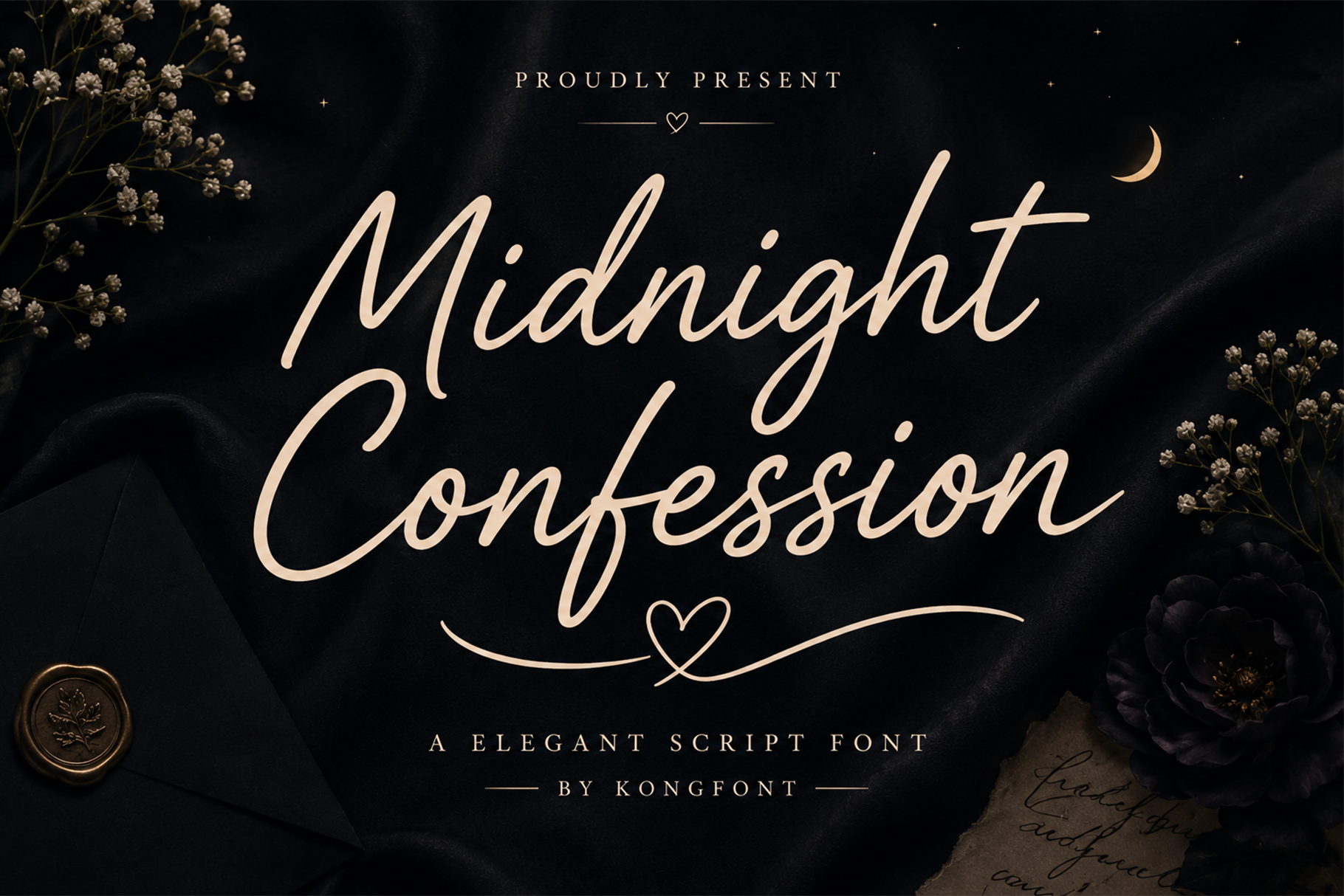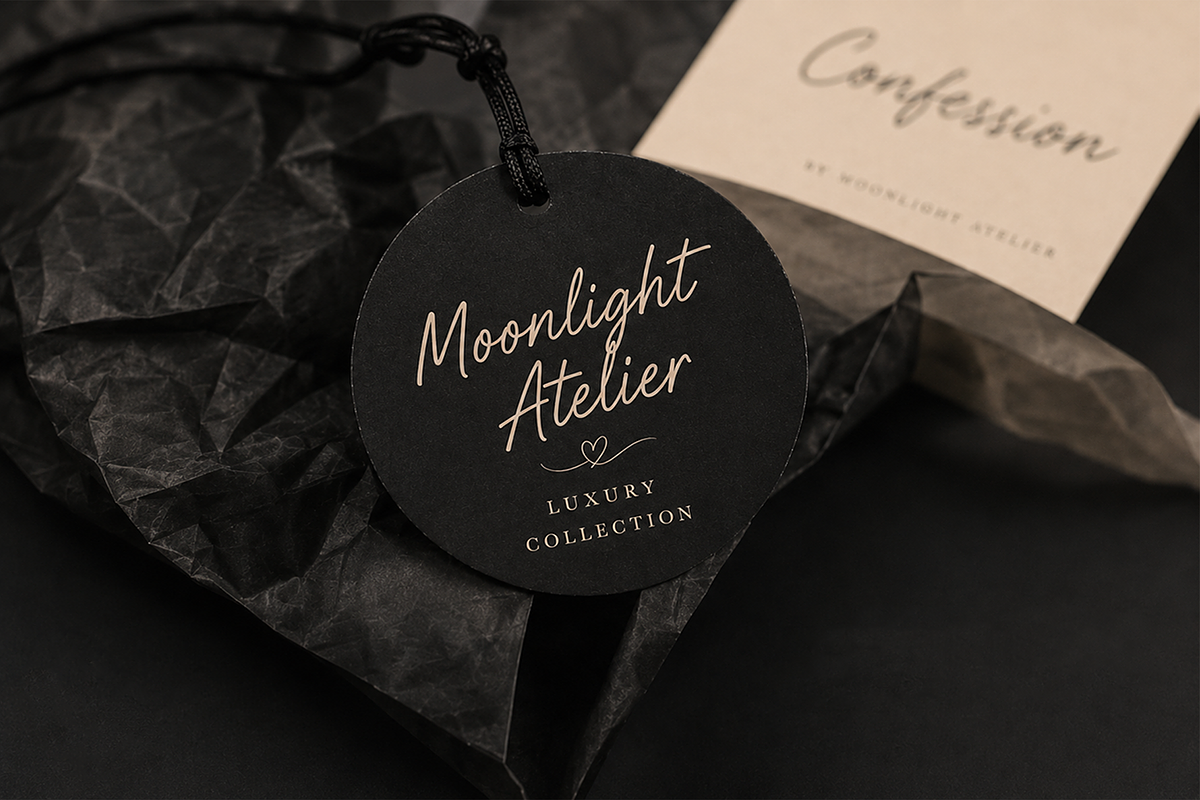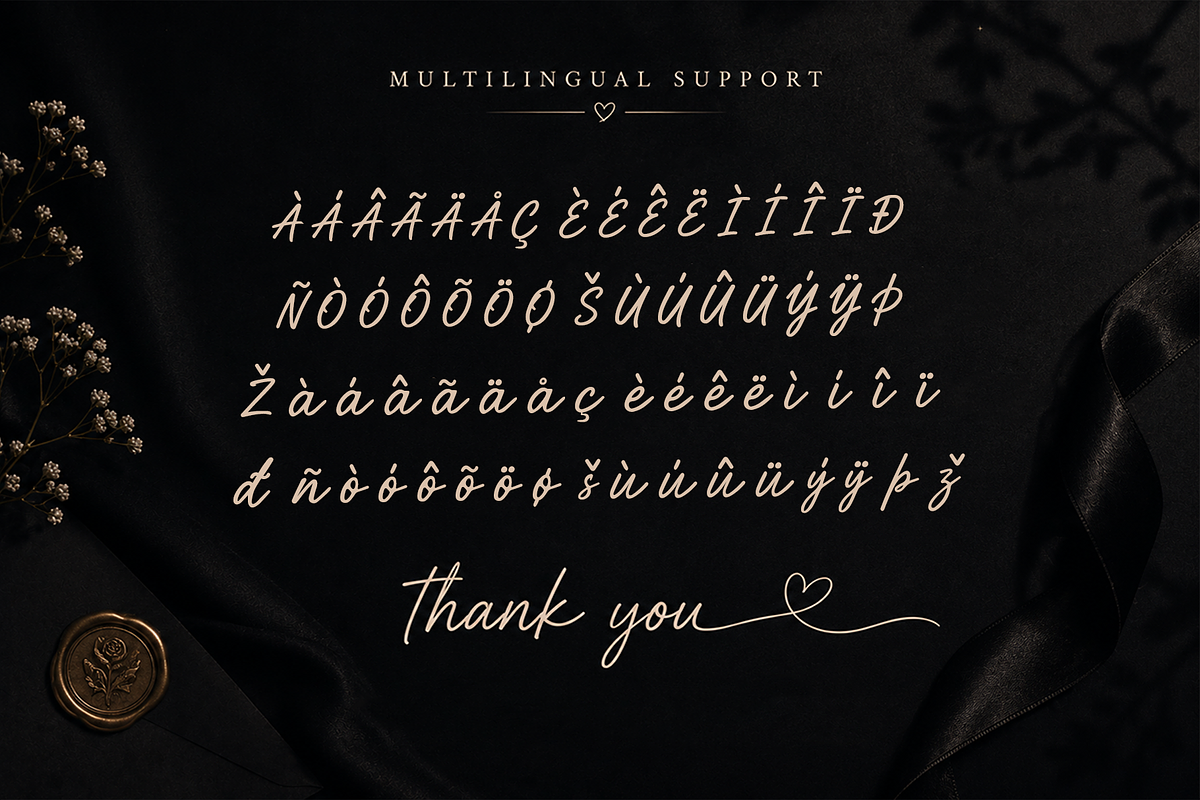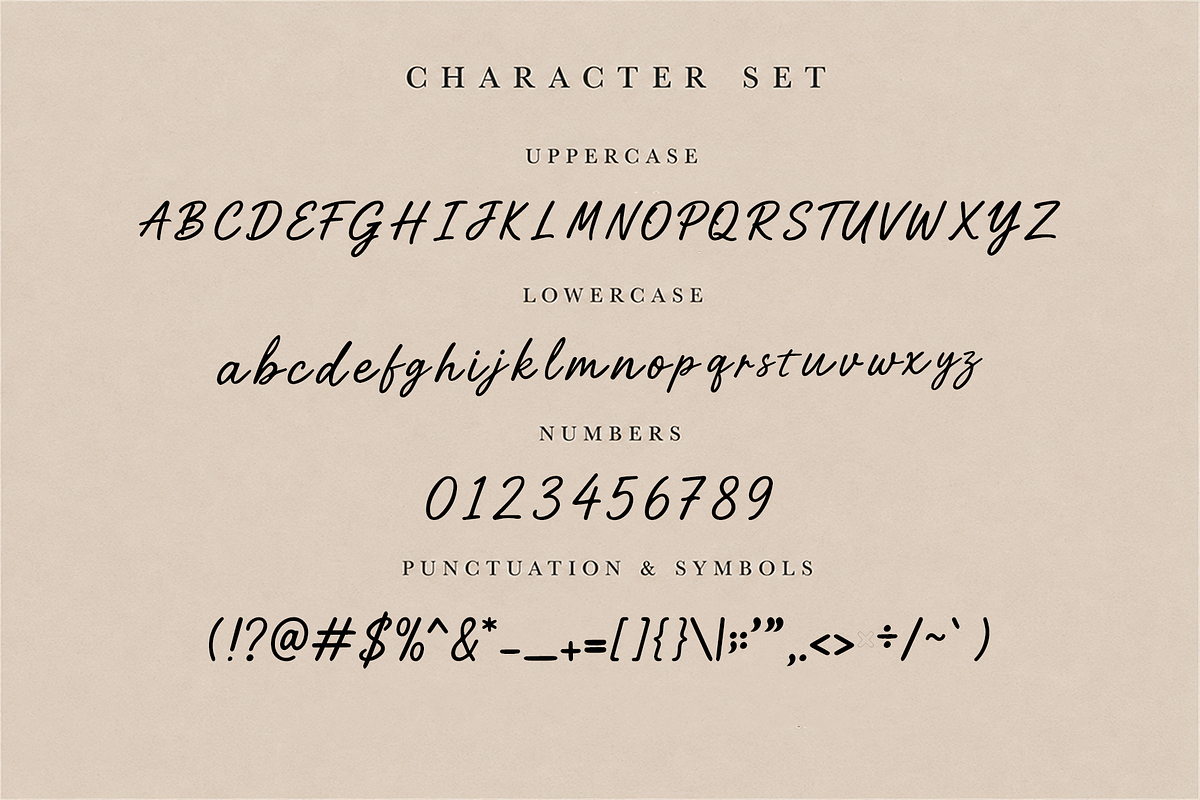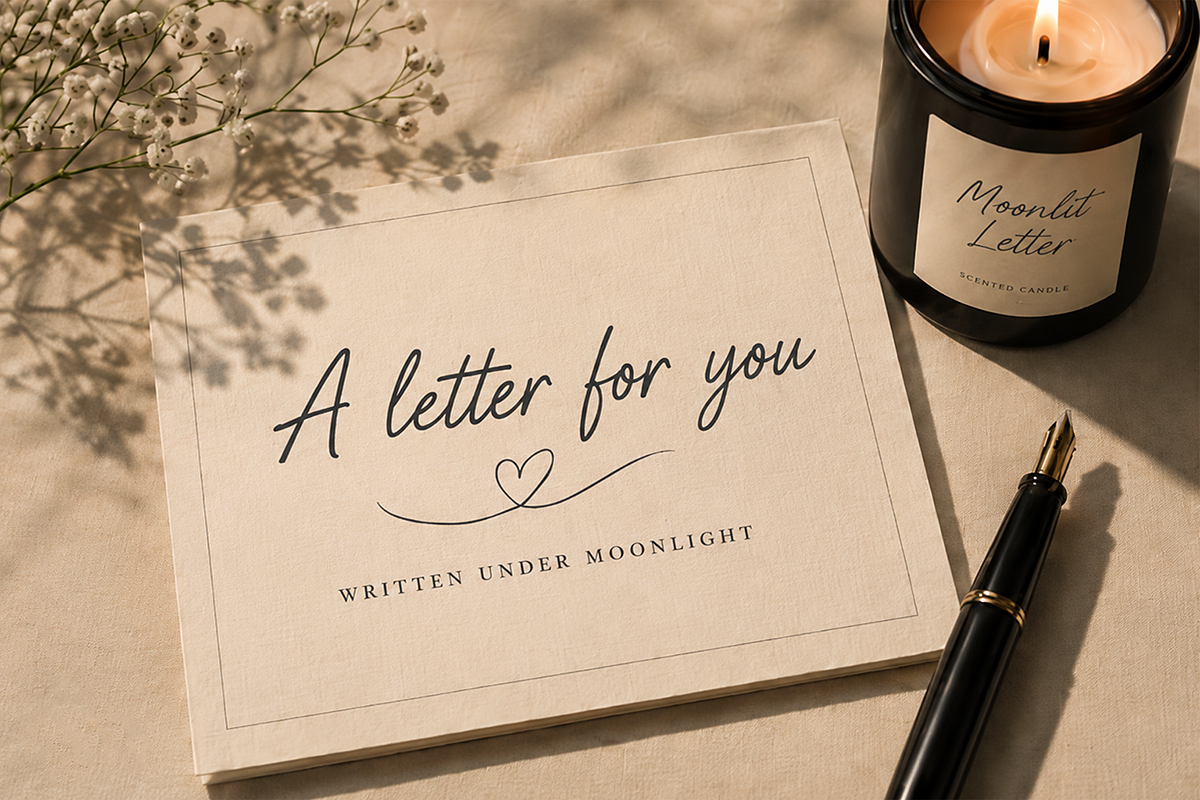
Midnight Confession - Script Font
Midnight Confession - Elegant Script Font
Introducing Midnight Confession, an elegant script font that captures the beauty of handwritten calligraphy with smooth flowing strokes and refined curves. Designed to bring warmth, sophistication, and romance to every project, this typeface is perfect for creatives seeking a luxurious handwritten aesthetic.
Its graceful letterforms make it ideal for wedding invitations, branding, logos, greeting cards, social media graphics, beauty products, fashion editorials, packaging, book covers, and heartfelt quotes. Midnight Confession includes uppercase and lowercase characters, numerals, punctuation, ligatures, stylistic alternates, and multilingual support, giving designers the flexibility to create stunning typography with ease.